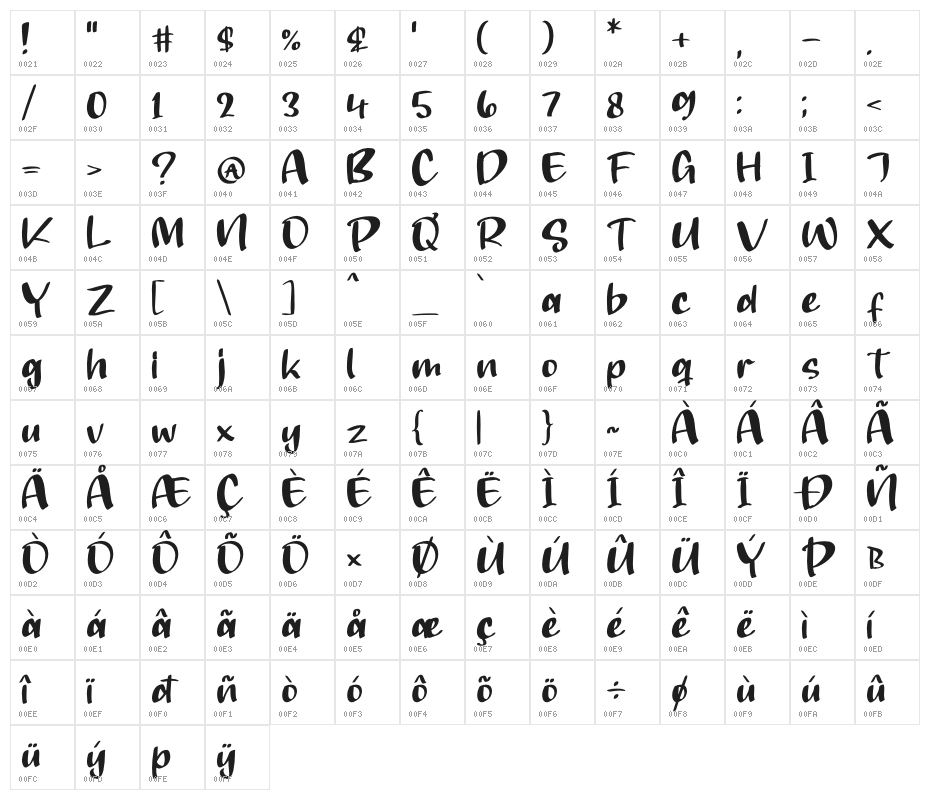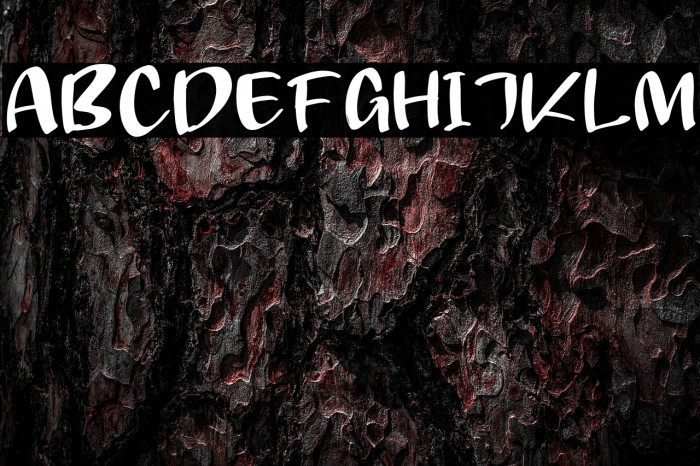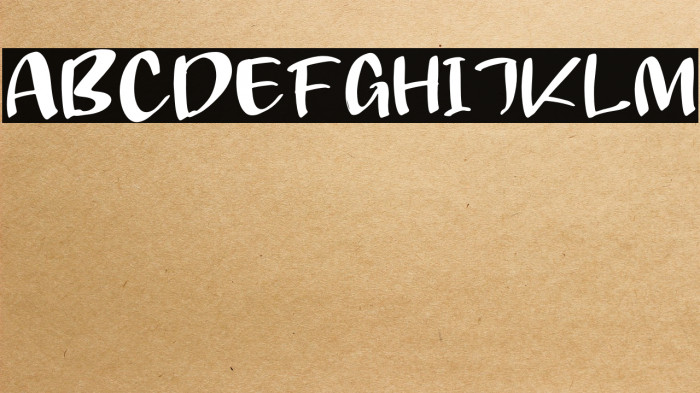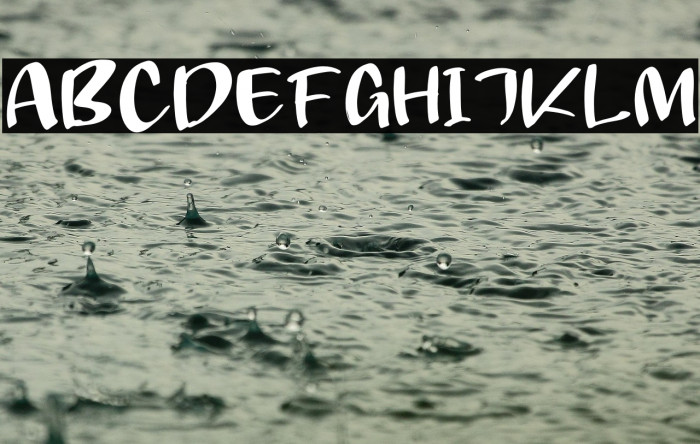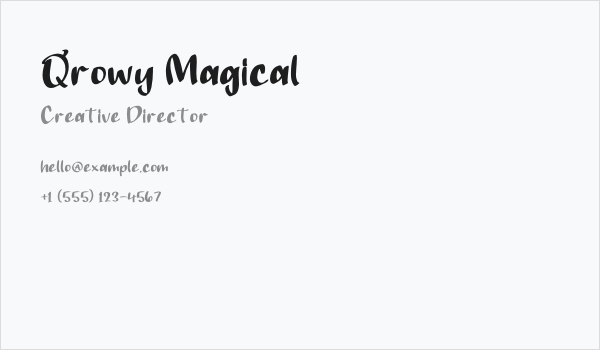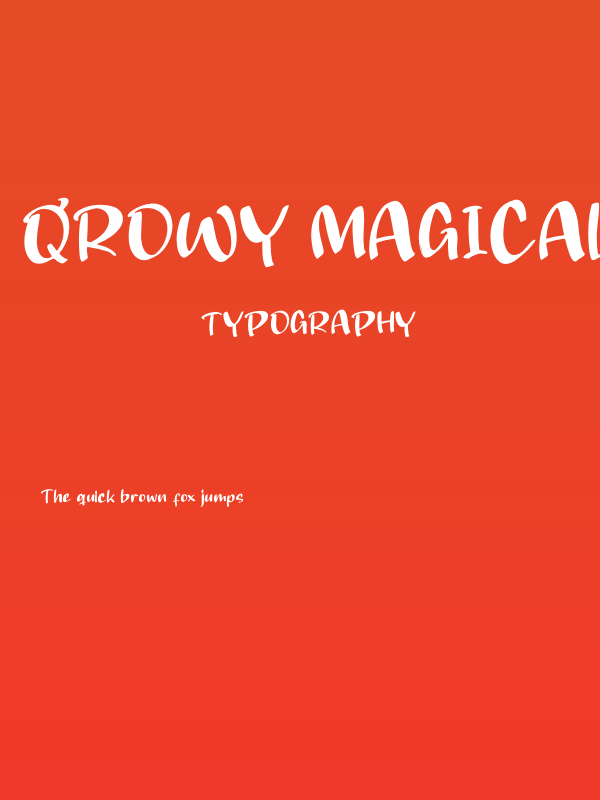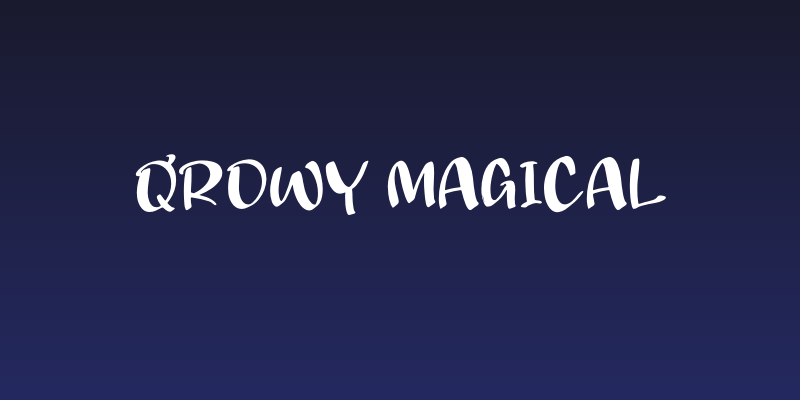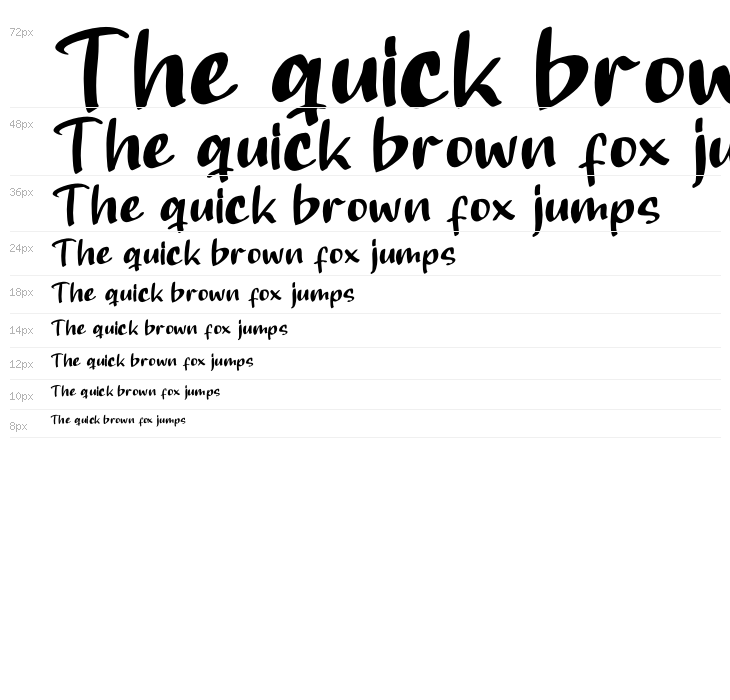
Qrowy Magical Font
Qrowy Magical Description
This font exudes a lively and dynamic energy, characterized by its bold and expressive brush strokes. The letters are crafted with a sense of movement, giving them a fluid and spontaneous appearance. The uppercase and lowercase characters maintain a consistent style, with rounded edges and varying stroke widths that add to its playful nature. The numerals and special characters follow the same design principles, ensuring a cohesive look across all elements. This font is perfect for projects that require a touch of creativity and flair.
| Proposed Projects | Ideal for creative projects such as posters, invitations, branding, and social media graphics. |